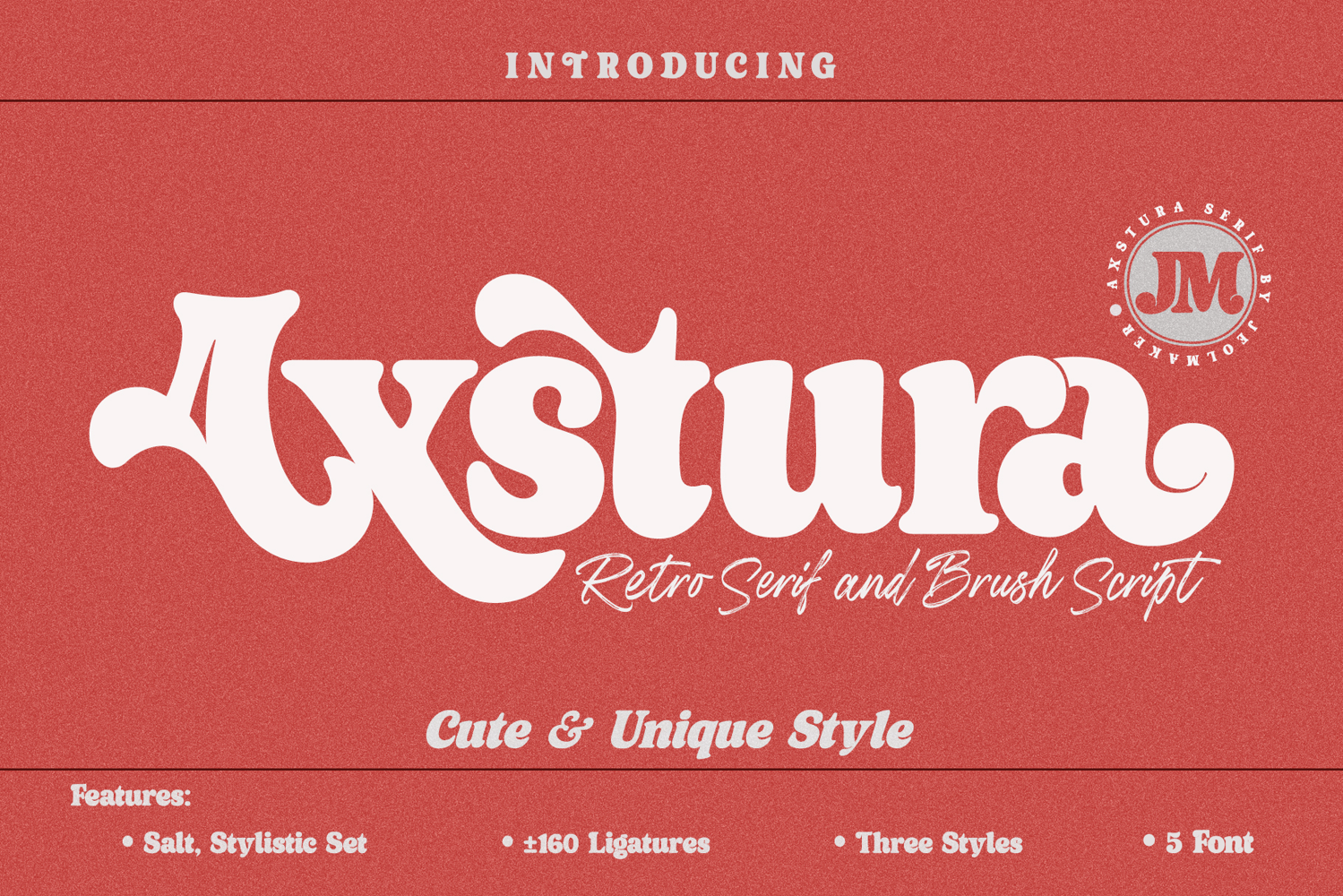
Axstura JM Font Duo
Axstura JM and Axstura Retro Serif... Font with an artistic touch elegant modern yet vintage the as well as a unique blend of ligatures a letter, so that the authors compose it with a and little swirly embedding, so that a modern font is formed and ready to make a statement by adding elegant and unique flair to your next design project.
Axstura JM and Axstura Retro Serif... can be used for various purposes such as Magazine Title, Poster, Logo, T-Shirt, Sub Title, Business cards, Magazines, Book Covers, Wedding Invitations,Templates Instagram Story Post, Greeting Cards, Quotes, etc.
This font comes with four styles, Axstura JM Regular, Axstura JM Italic,
Axstura Regular, Axstura Italic.